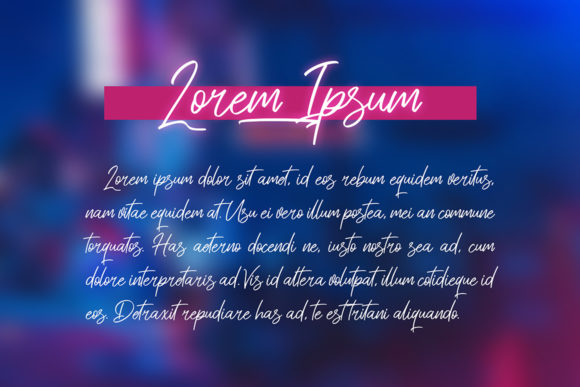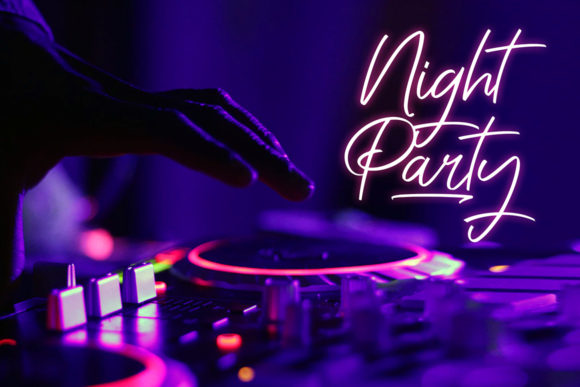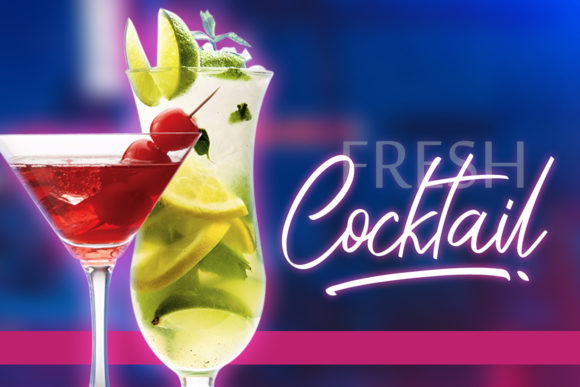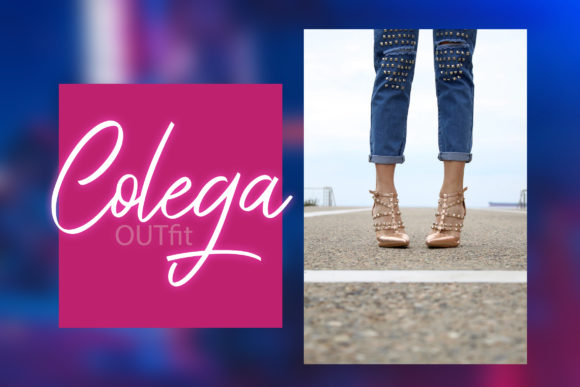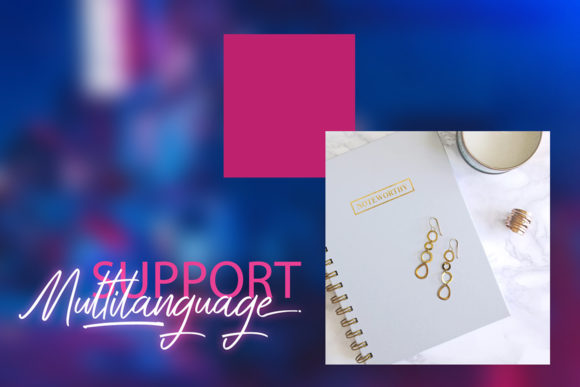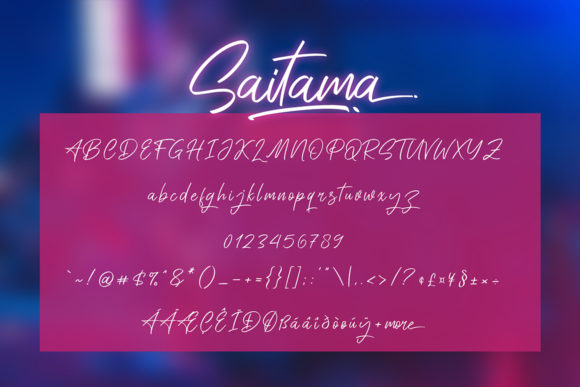
Introduction to Saitama Font
Saitama is a gorgeous and light handwritten font.
Reminiscent of the flashy 80’s, it will turn any design project into a true stand out .
Key Features of Saitama Font